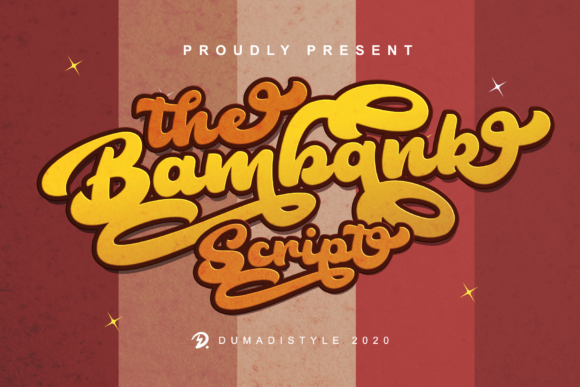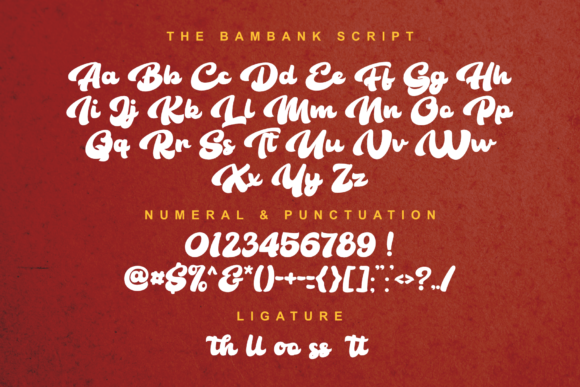
About The Bambank Script Font
Introducing “The Bambank Script,” a stylish and vintage-inspired handwritten font that exudes charm and nostalgia. With its unique character and versatility, “The Bambank Script” is the perfect choice for a wide range of design projects. It is PUA encoded, ensuring easy access to all the glyphs and swashes, making your creative process seamless and delightful.
“The Bambank Script” showcases a varying baseline, adding a touch of playfulness to its vintage appeal. Its smooth lines and stunning alternates enhance the font’s allure, leaving a lasting impression on any design it graces.
Imagine using “The Bambank Script” to create eye-catching vintage wedding invitations, retro-themed logos, captivating quotes, or any project that demands a touch of elegance with a vintage twist.
In vintage wedding invitations, “The Bambank Script” sets the tone for a celebration of timeless love and nostalgia, evoking warm memories for every recipient.
For logo design and branding, “The Bambank Script” becomes a symbol of old-world charm and authenticity, infusing your brand with a sense of classic elegance.
Captivating quotes gain a touch of whimsy and romance with “The Bambank Script,” as its vintage feel brings sentiments to life with a touch of nostalgia.
With its versatile style and vintage charm, “The Bambank Script” becomes an invaluable tool for elevating your designs to new levels of beauty and nostalgia.
In conclusion, “The Bambank Script” is more than just a font; it’s a journey back in time to an era of elegance and vintage allure. With its stylish and versatile appeal, “The Bambank Script” becomes an essential companion for all your design projects. Fall in love with the captivating charm of “The Bambank Script” and watch as your creations become spectacular works of art, infused with the beauty of the past and the creativity of the present. Let your imagination flourish in the vintage-inspired embrace of “The Bambank Script,” the handwritten font that defines timeless elegance and brings a touch of nostalgia and allure to every design.